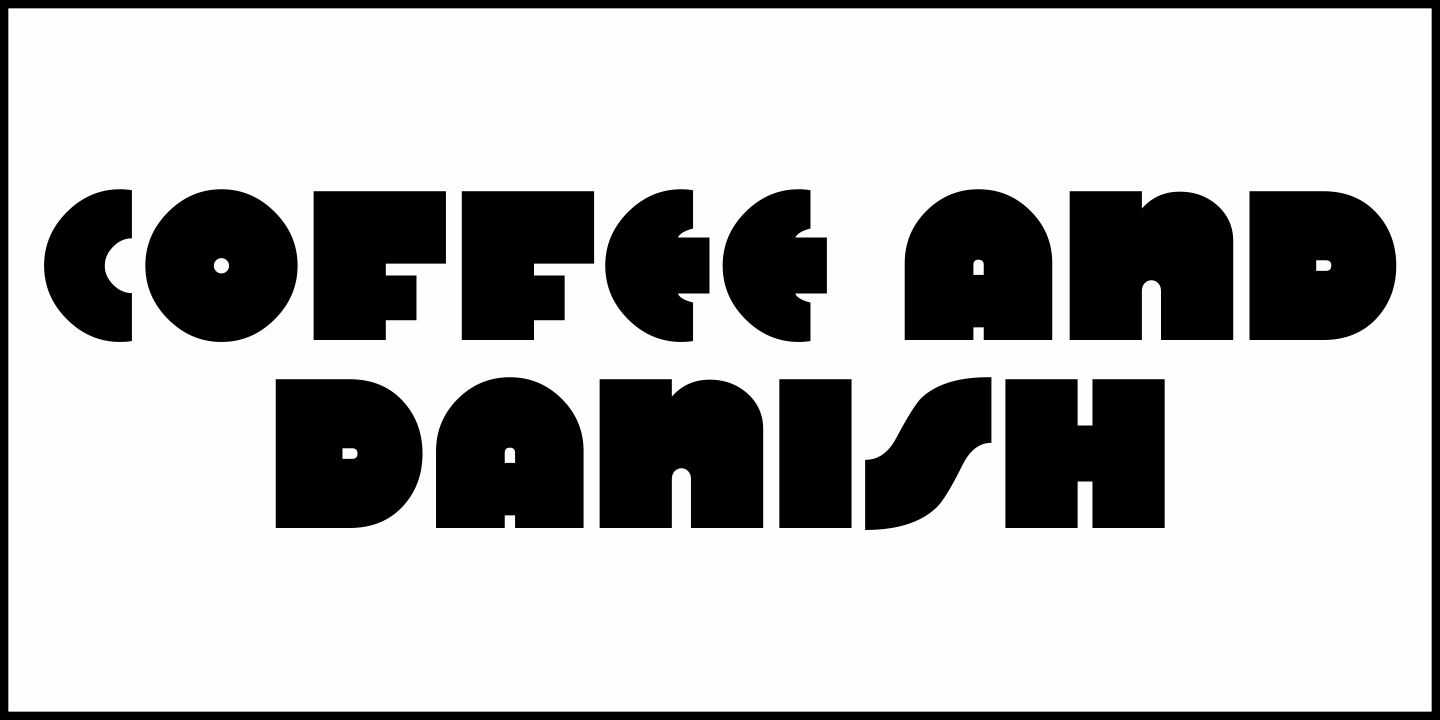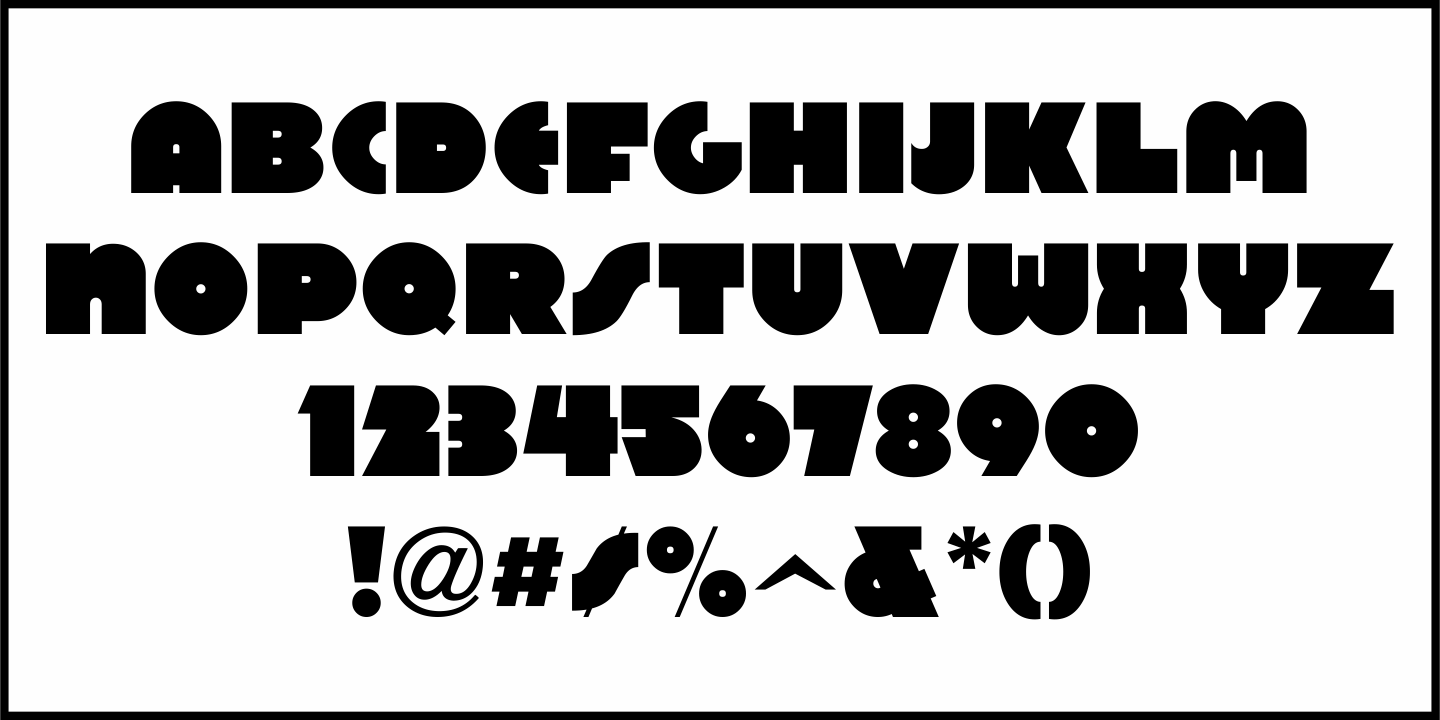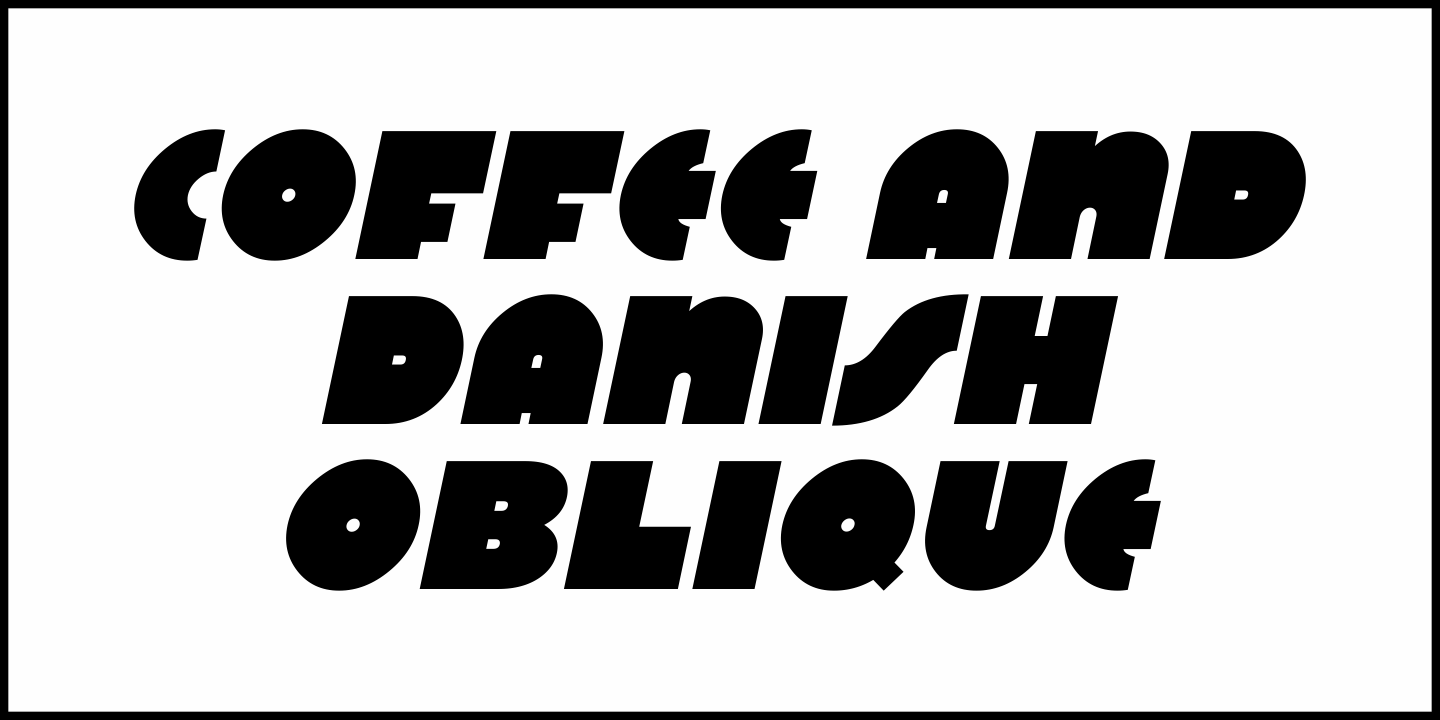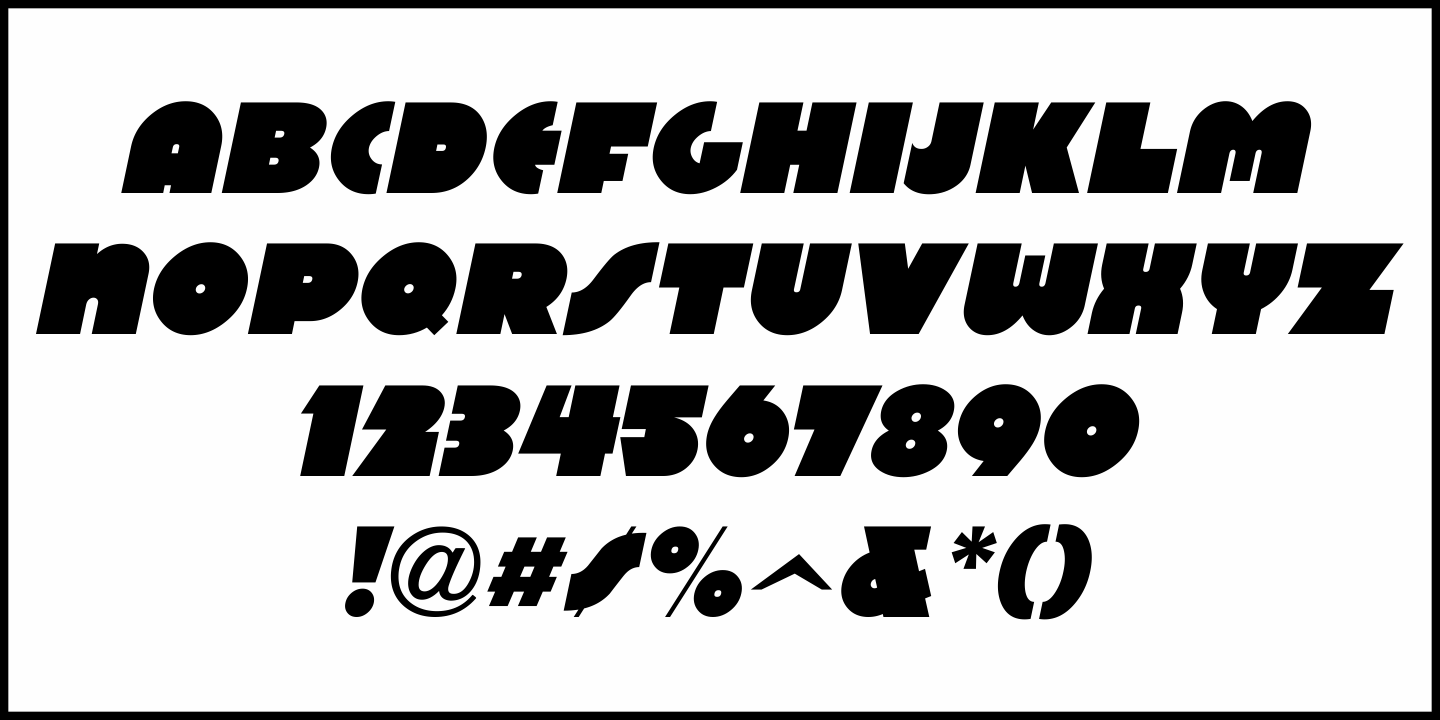
Coffee and Danish
In the collection of vintage and historic images available online from the Library of Congress is one of the exterior of the Town Talk Diner in Minneapolis, Minnesota.
Regrettably, on May 28, 2020, the Town Talk Diner was damaged by vandalism, and subsequently destroyed by a fire that engulfed the building early on the morning of May 29th due to civil unrest following the death of George Floyd.
The restaurant first opened in 1946, closed in 2011 and subsequently re-opened under new ownership in 2014 with French cuisine, then from 2016 until its demise as an American bistro.
While this was not known at the time of selecting the image for a typographic model, subsequent research on the diner turned up these facts.
The large vintage sign above the entrance was in big, bold Art Deco letters with rows and rows of bulbs for illuminating the name at night.
Coffee and Danish JNL, modeled from the image of that sign, is available in both regular and oblique versions. Perhaps, in a way, the type design will serve as a bit of historic recognition for a popular eating spot.